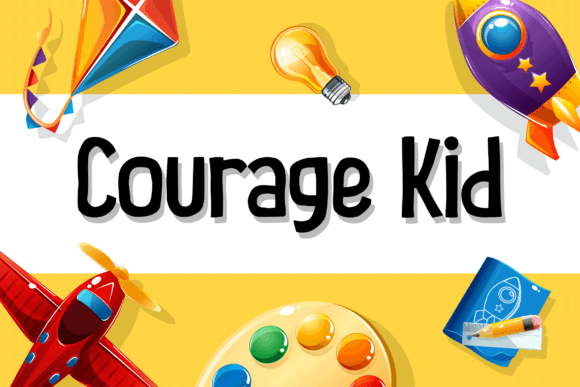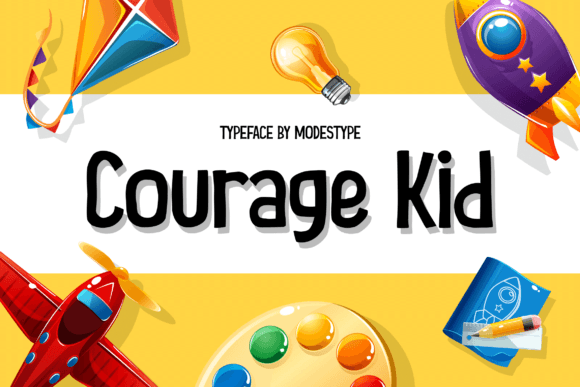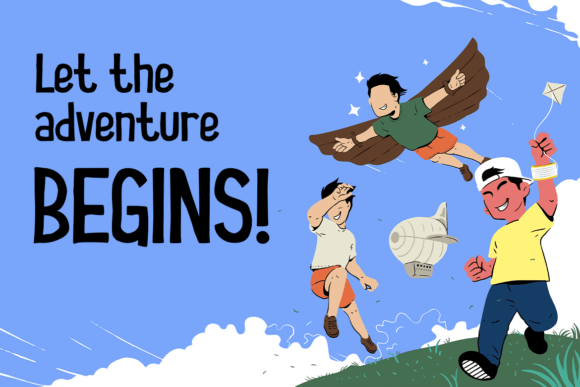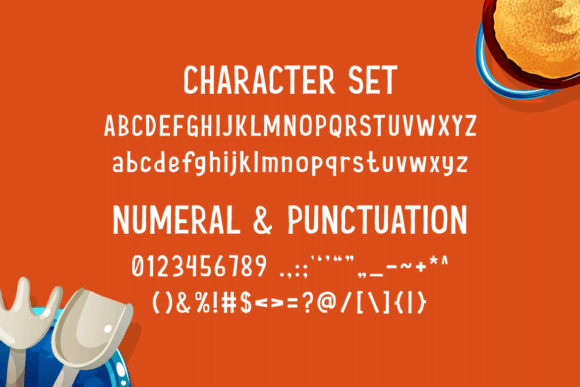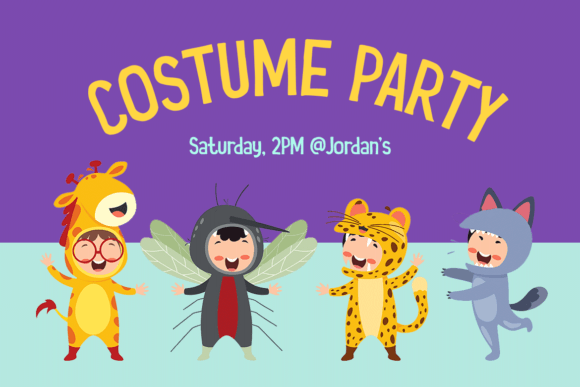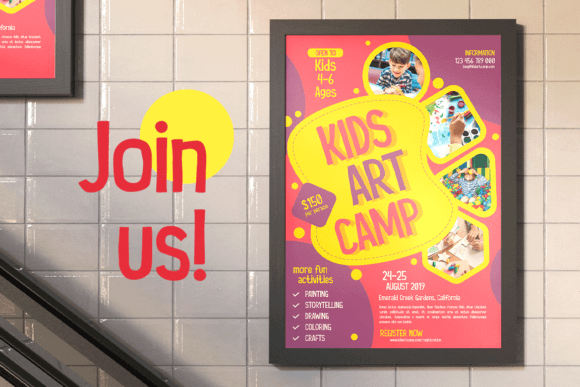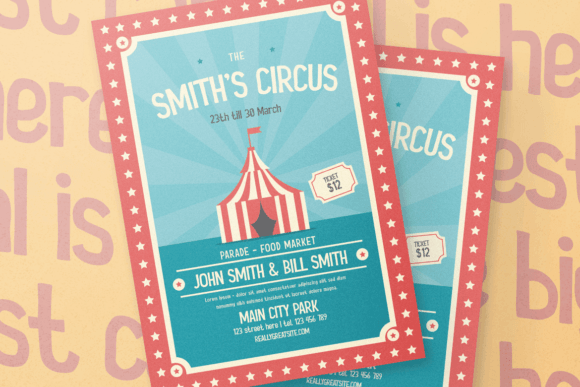
Unleashing the Joy of Childhood: Introducing Courage Kid Font
Do you remember the countless hours spent playing with crayons, watching cartoons, and dreaming big as a child? Those carefree moments are etched in our memories forever, a testament to the boundless energy and courage that defines our youth. As designers, we strive to capture that essence in our creations, and for that, we have the Courage Kid Font.
This charming font is designed specifically for kids, with imperfect lines that reflect the organic development and growth that children experience in their lives. Its playful and adventurous spirit makes it a perfect fit for the kids’ books market, online games, event posters, and more. With Courage Kid Font, designers can tap into the unbridled enthusiasm of childhood, creating engaging and memorable designs that capture the hearts of young audiences.
Courage Kid Font Key Features
- Font Family: Courage Kid
- Unique Characteristics: Hand-drawn design, playful and child-friendly feel, ideal for children’s books, educational materials, and kid-oriented branding
Courage Kid Font Review
I recently had the chance to work with the Courage Kid font, and I must say it’s a unique and eye-catching choice for any project. ✨ Here are a few things that really stood out to me:
- Its playful and bold aesthetic makes it perfect for creating a fun and energetic vibe.
- The font’s bold weight is excellent for headings and titles, adding a nice touch of drama to any design.
- The font’s irregularities and quirks give it a hand-drawn feel that’s sure to grab attention.
However, as with any font, there are some limitations to consider: ⚠️
- The font’s irregularities can also make it difficult to read in certain contexts, particularly for large blocks of text.
- The font’s bold weight can sometimes feel overwhelming, making it difficult to balance with other design elements.
Overall, I think the Courage Kid font is a great choice for projects where you want to create a bold and attention-grabbing vibe. It’s not ideal for every project, but in the right context, it can be a real showstopper.
Tips for Getting the Most Out of Courage Kid Font
Use Courage Kid Font for titles, headings, and emphasis in your designs.
Combine Courage Kid Font with other fonts for a unique and creative look.
Courage Kid Font is perfect for:
Children’s book titles and headings.
Education and learning materials.
Family and parenting-related designs.
Children’s party invitations and decorations.
Alternatives to Courage Kid Font
Luckiest Guy
Luckiest Guy is a sans-serif font with a fun and playful feel, making it perfect for children’s books, educational materials, and casual designs.
Compared to Courage Kid Font, Luckiest Guy has a more rounded and softer appearance, which can be beneficial for designs that require a more approachable tone.
Great Vibes is a script font that conveys a sense of friendliness and approachability, ideal for designs that require a personal touch, such as invitations, greeting cards, and personal blogs.
Unlike Courage Kid Font, Great Vibes is more cursive and flowing, which can add a sense of elegance and sophistication to designs.
Rock Salt is a distressed font with a rugged and vintage feel, suitable for designs that require a sense of grit and authenticity, such as action sports, outdoor gear, and retro-themed designs.
Compared to Courage Kid Font, Rock Salt has a more rugged and worn appearance, which can be beneficial for designs that require a sense of ruggedness and adventure.
Alex Brush is a script font with a modern and stylish feel, ideal for designs that require a touch of sophistication and elegance, such as luxury brands, high-end fashion, and upscale events.
Unlike Courage Kid Font, Alex Brush is more refined and polished, which can be beneficial for designs that require a sense of luxury and high-end quality.